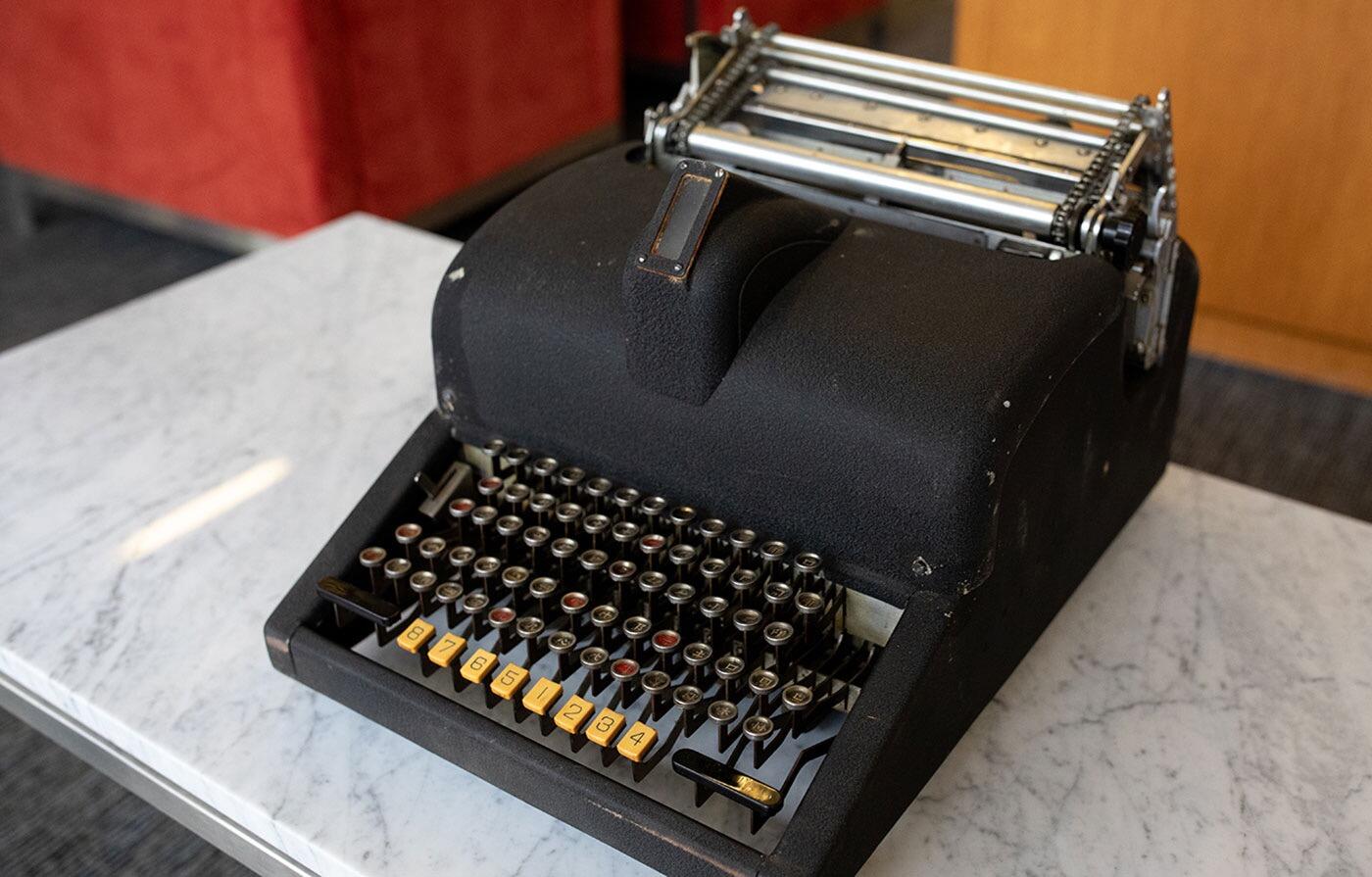
MingKwai prototype, the origin of Chinese computing, finds a home at Stanford
Lost for more than half a century, the rare Chinese typewriter whose name means “clear and fast” was discovered in a New York basement and entrusted to Stanford Libraries.